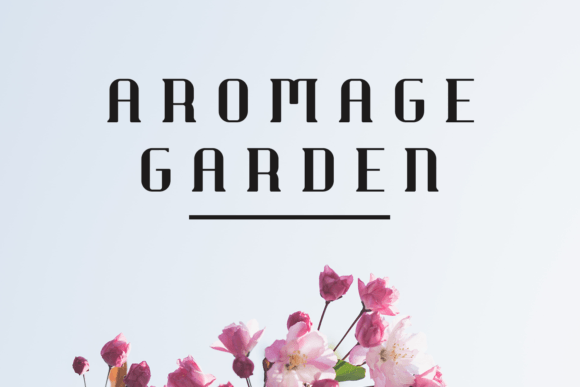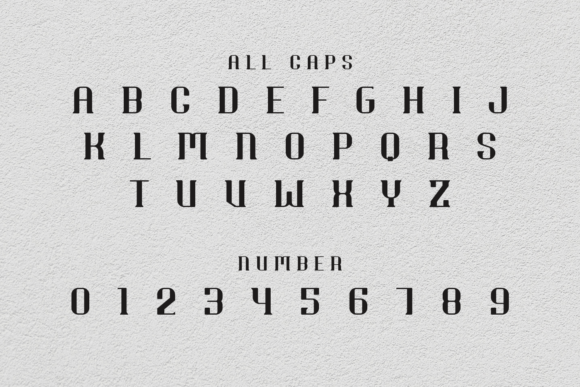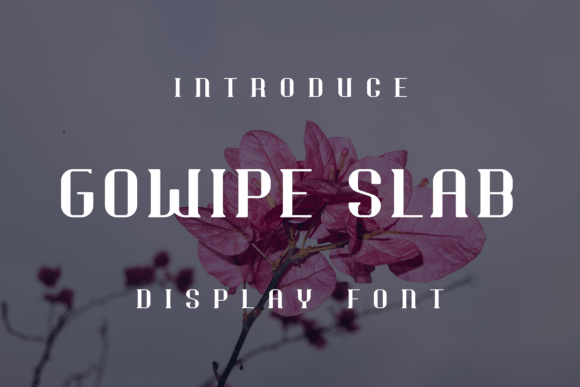
Gowipe Slab Font: Elevate Your Designs with a Fun and Unique Display Font
Are you tired of using the same old fonts in your designs? Do you want to add a touch of personality and whimsy to your creations? Look no further than Gowipe Slab Font, a fun and unique display font that’s sure to elevate your font library. In this article, we’ll take a closer look at Gowipe Slab, its features, and how it can be used to take your designs to the next level.
What is Gowipe Slab Font?
Gowipe Slab Font is a display font that’s designed to make a statement. With its bold and chunky letters, it’s perfect for adding a touch of playfulness and humor to your designs. Whether you’re working on a project for a client or creating something for your own portfolio, Gowipe Slab is sure to grab attention and leave a lasting impression.
Key Features of Gowipe Slab Font
So, what makes Gowipe Slab Font so special? Here are just a few of its key features:
• Unique and quirky design: Gowipe Slab Font has a one-of-a-kind design that’s sure to stand out from the crowd. Its bold and chunky letters are perfect for creating eye-catching headlines and titles.
• Highly versatile: Despite its bold design, Gowipe Slab Font is surprisingly versatile. It can be used for a wide range of projects, from posters and flyers to social media graphics and branding materials.
• Easy to read: Despite its chunky design, Gowipe Slab Font is surprisingly easy to read. This makes it perfect for use in headlines and titles, where you want to grab attention without sacrificing legibility.
• Fun and playful: Gowipe Slab Font has a fun and playful vibe that’s perfect for projects that require a bit of personality and whimsy.
How to Use Gowipe Slab Font in Your Designs
So, how can you use Gowipe Slab Font in your designs? Here are a few ideas to get you started:
• Headlines and titles: Gowipe Slab Font is perfect for use in headlines and titles, where you want to grab attention and make a statement.
• Posters and flyers: Use Gowipe Slab Font to create eye-catching posters and flyers that are sure to stand out from the crowd.
• Social media graphics: Add a touch of personality and whimsy to your social media graphics with Gowipe Slab Font.
• Branding materials: Use Gowipe Slab Font to create unique and memorable branding materials, such as logos and business cards.
Why You Need Gowipe Slab Font in Your Font Library
So, why do you need Gowipe Slab Font in your font library? Here are just a few reasons:
• Adds personality and whimsy: Gowipe Slab Font adds a touch of personality and whimsy to your designs, setting them apart from the crowd.
• Highly versatile: Gowipe Slab Font can be used for a wide range of projects, making it a valuable addition to your font library.
• Easy to use: Gowipe Slab Font is easy to use and pairs well with a wide range of other fonts, making it easy to incorporate into your designs.
Font Name Gowipe Slab Font
Author lelevien
In conclusion, Gowipe Slab Font is a fun and unique display font that’s sure to elevate your font library. With its bold and chunky design, highly versatile nature, and ease of use, it’s perfect for adding a touch of personality and whimsy to your designs. Whether you’re working on a project for a client or creating something for your own portfolio, Gowipe Slab Font is sure to grab attention and leave a lasting impression. So why wait? Add Gowipe Slab Font to your font library today and take your designs to the next level!